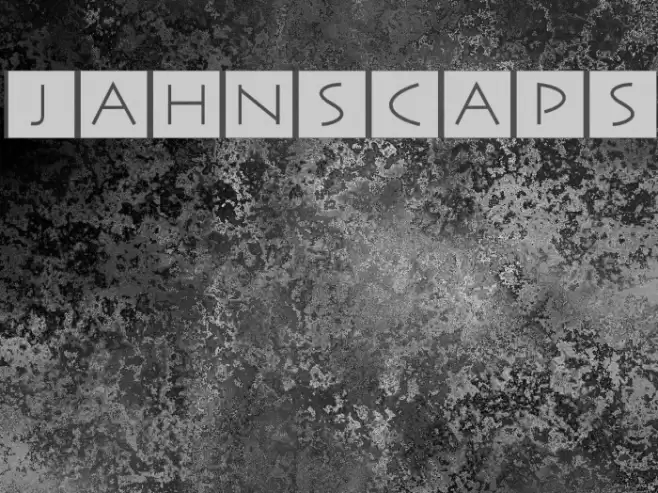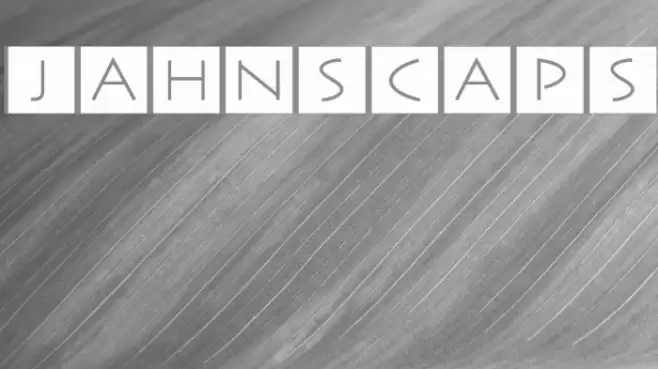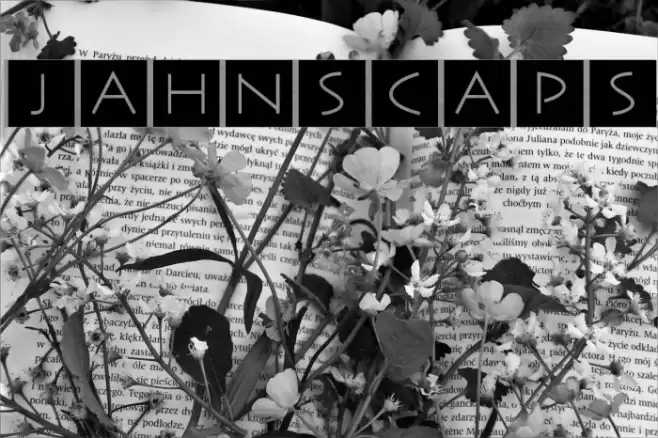
JahnsCaps Font
JahnsCaps Description
This font features a unique geometric style with each character enclosed in a square. The letters are crafted with clean, angular lines, giving them a modern and futuristic appearance. The uppercase and lowercase letters maintain a consistent style, with slight variations in size and proportion. Numbers are similarly designed, ensuring uniformity across all characters. The special characters are distinct yet harmonize with the overall aesthetic. The font's design is bold and eye-catching, making it suitable for attention-grabbing projects.
A geometric, modern font with characters enclosed in squares from Uncategorized fonts.
- Proposed Projects: Ideal for modern branding, futuristic designs, posters, and digital media.